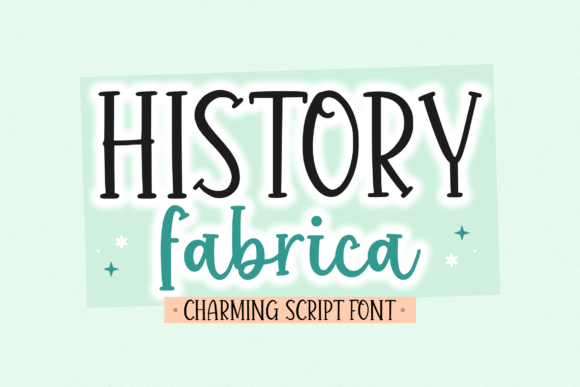
Embark on a nostalgic journey with the History Fabrica Font, a captivating script font brimming with charm and elegance. Let your designs exude a timeless allure, reminiscent of heartfelt letters penned in ages past. Whether you're a creative professional crafting logos and branding, a designer yearning for unique invitations, or simply seeking to add a touch of whimsy to your personal projects, History Fabrica is your steadfast companion.
Immerse yourself in the versatility of this alluring font, seamlessly adapting to a myriad of design endeavors. Envision the warmth it will bring to your wedding invitations, the sophistication it will lend to your business cards, and the vibrant energy it will infuse into your social media posts. With History Fabrica, the possibilities are boundless.
Step into a world where creativity flourishes and imagination knows no bounds. Allow this enchanting font to transform your designs into captivating works of art. Its delicate strokes and graceful curves will captivate your audience, leaving an indelible mark on their hearts. Unleash the storyteller within you and let History Fabrica narrate your visual tales with panache.
With History Fabrica, you hold the key to unlocking a treasure trove of design possibilities. Let your imagination soar as you craft designs that evoke emotions and create lasting impressions. Experience the joy of transforming ordinary words into extraordinary expressions, imbued with the charm and elegance of a bygone era. Let History Fabrica be your muse, inspiring you to create masterpieces that stand the test of time.
Indulge in the exquisite details of History Fabrica, a font meticulously crafted to evoke a sense of nostalgia and charm. Its playful personality adds a touch of whimsy to any project, while its timeless elegance ensures that your designs remain relevant and captivating for years to come. Embrace the allure of History Fabrica and let your creativity flourish like never before.